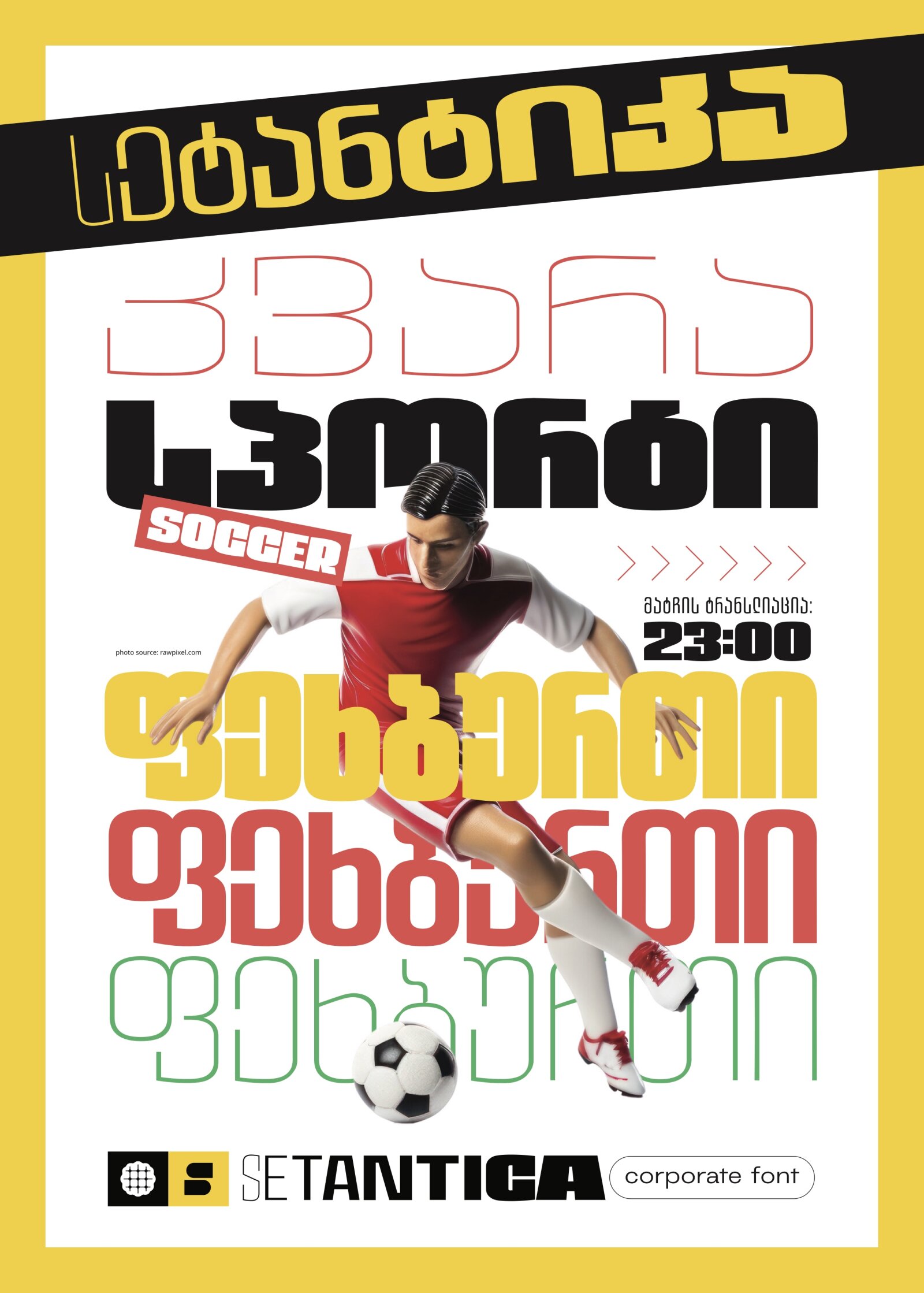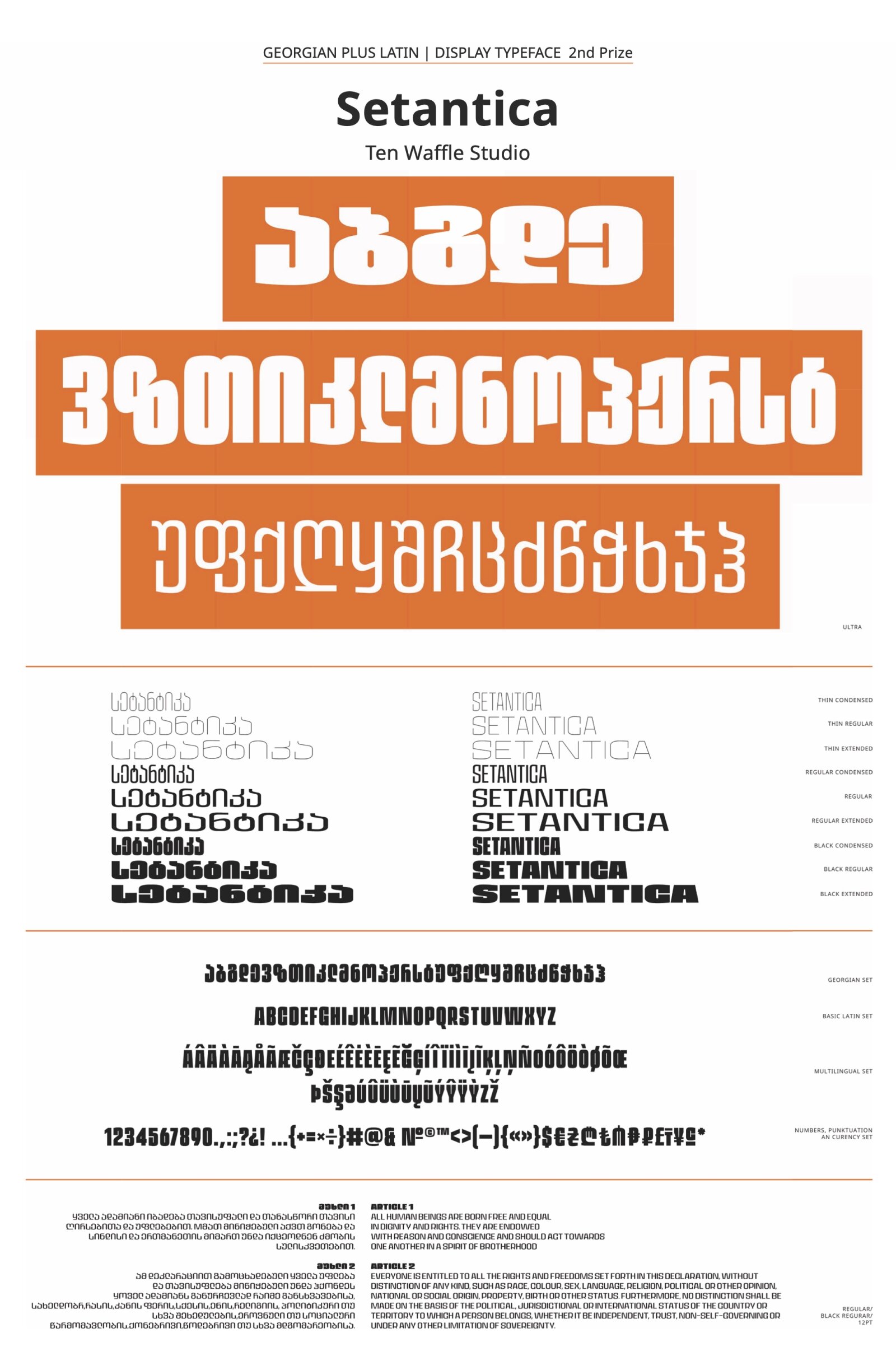
Setantica
by Alexander Sukiasov, Sergio Titenkov
Georgian
The concept behind this typeface revolves around a harmonious blend of athleticism and modernity. The font aims to capture the dynamic spirit of sports, translating it into a sleek and versatile design. Special attention has been given to ensure seamless functionality across various languages, promoting a global appeal. In terms of special characteristics, the typeface boasts elegant uppercase characters in Latin, Cyrillic, and Georgian scripts. The sharp lines and bold curves reflect the vigor of athletic movements, while the smooth transitions add a touch of fluidity.